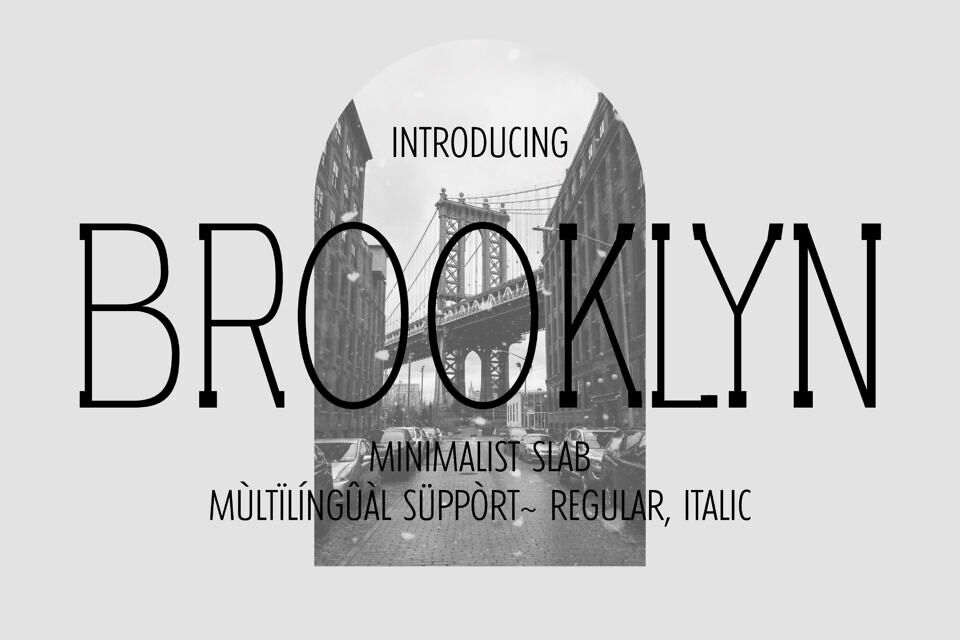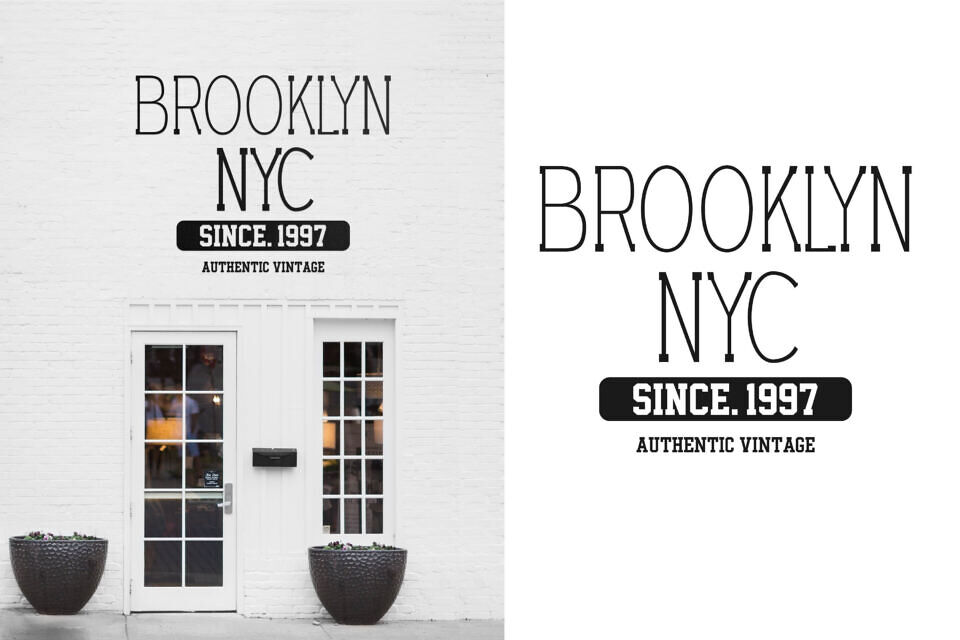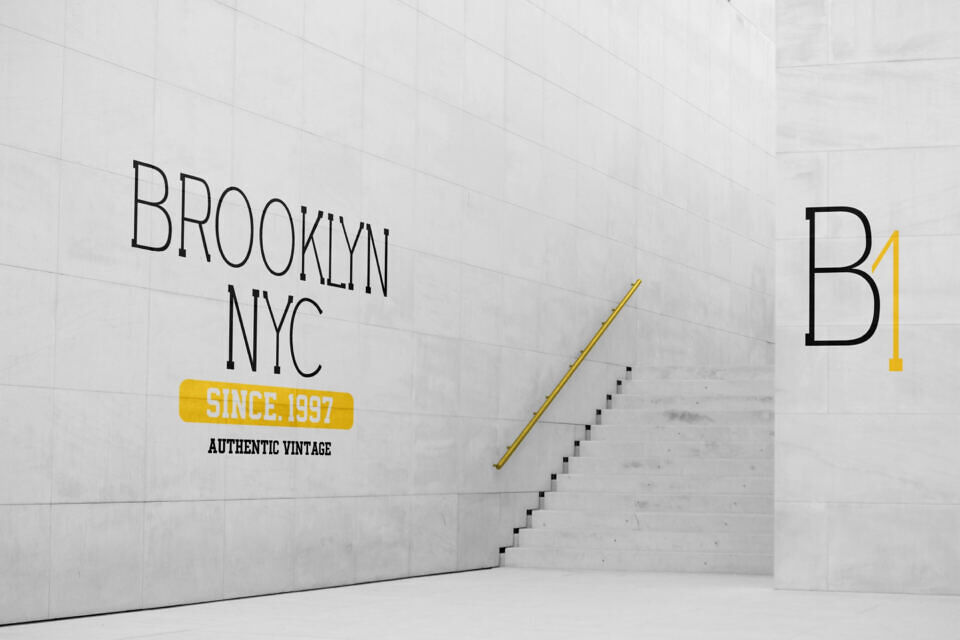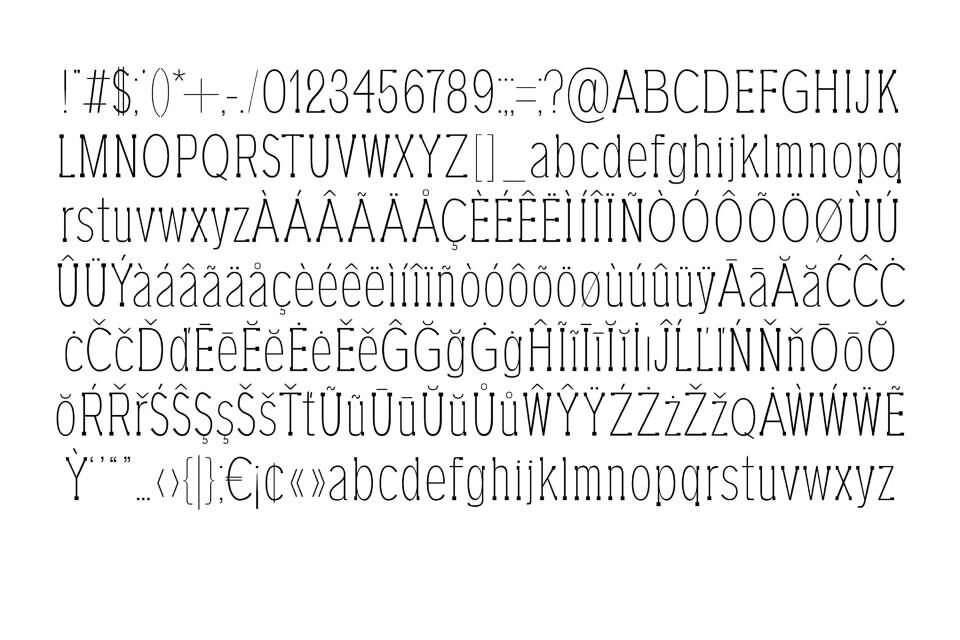
Brooklyn is a beautiful, delicate, and thin slab serif typeface. Its delicate thin aspect renders it very clean and elegant. It fits really well in various contexts such as packaging design, perfume design, fashion design, magazine covers, large-scale titles, etc.